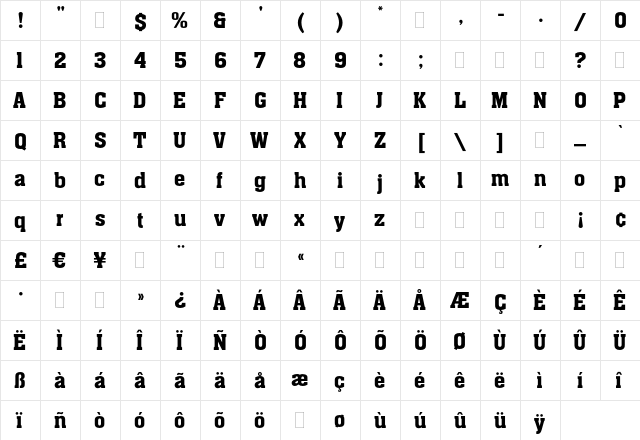
Aachen Medium Plain
Design Context for Aachen Medium Typeface
Aachen Medium is a composed and adaptable typeface that performs quietly and consistently across a wide range of design contexts.
Pro Tip: Use Aachen Medium in both headline and body roles to test its range before committing to a single application.